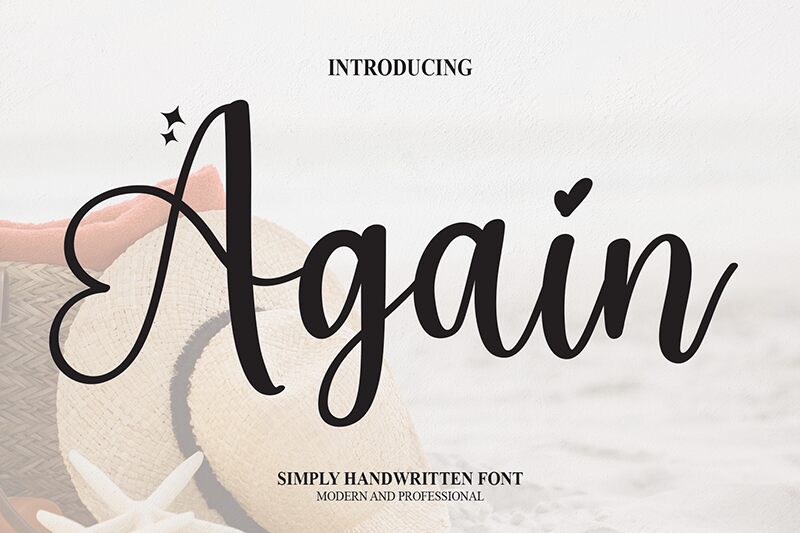
Again
Are you searching for a font that exudes elegance and sophistication? Look no further than Again, the calligraphy-inspired typeface created by scratchones. With its semi-light weight and delicate curves, Again is perfect for projects that demand a touch of refinement. Imagine using it for wedding invitations, high-end product labels, or even as the title font in a classic novel. Its graceful curves and intricate details make it stand out from other calligraphy fonts on the market. Choose Again to add an air of sophistication to your next project.
the latest style letters are perfect for wall displays, wedding invitations, social media post logos, advertisements, product packaging, product designs, labels, photography, watermarks, invitations, stationery, and any project that requires taste handwriting.